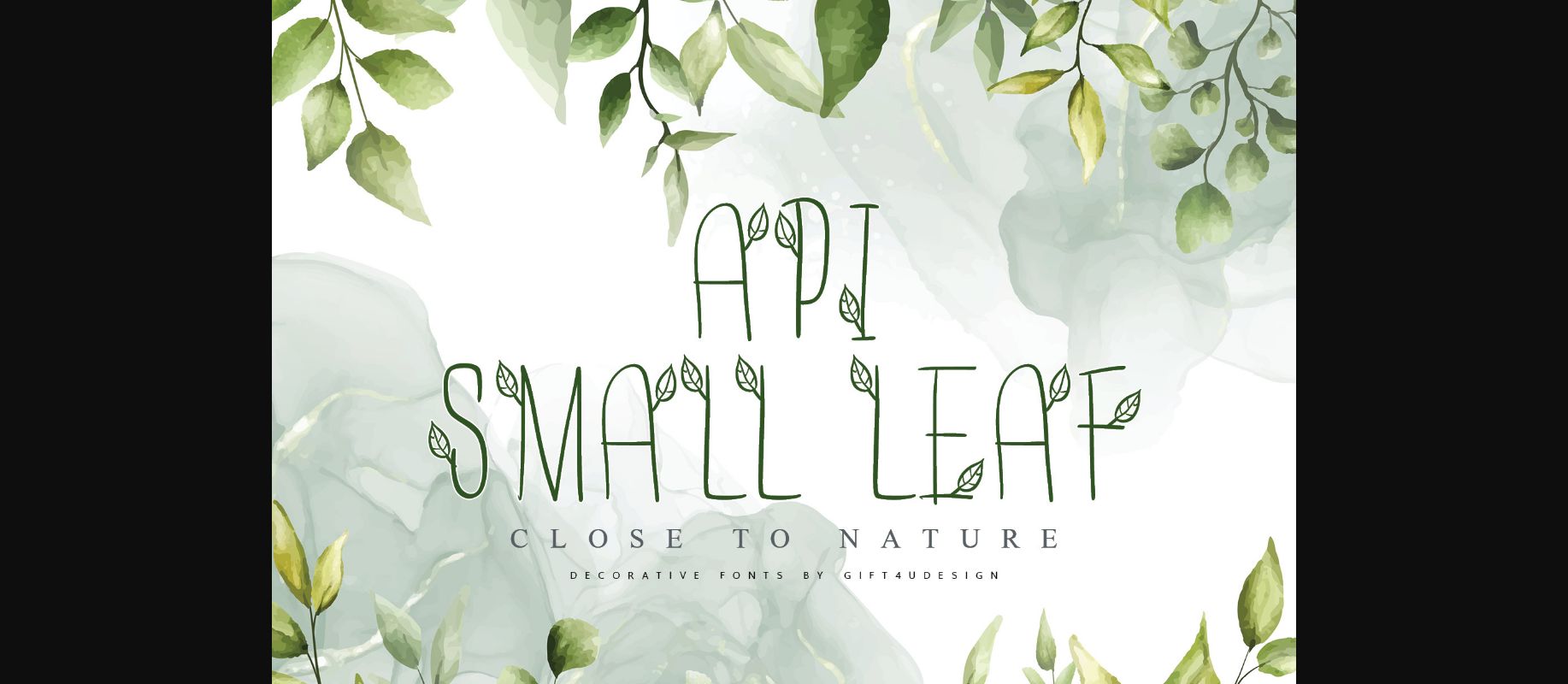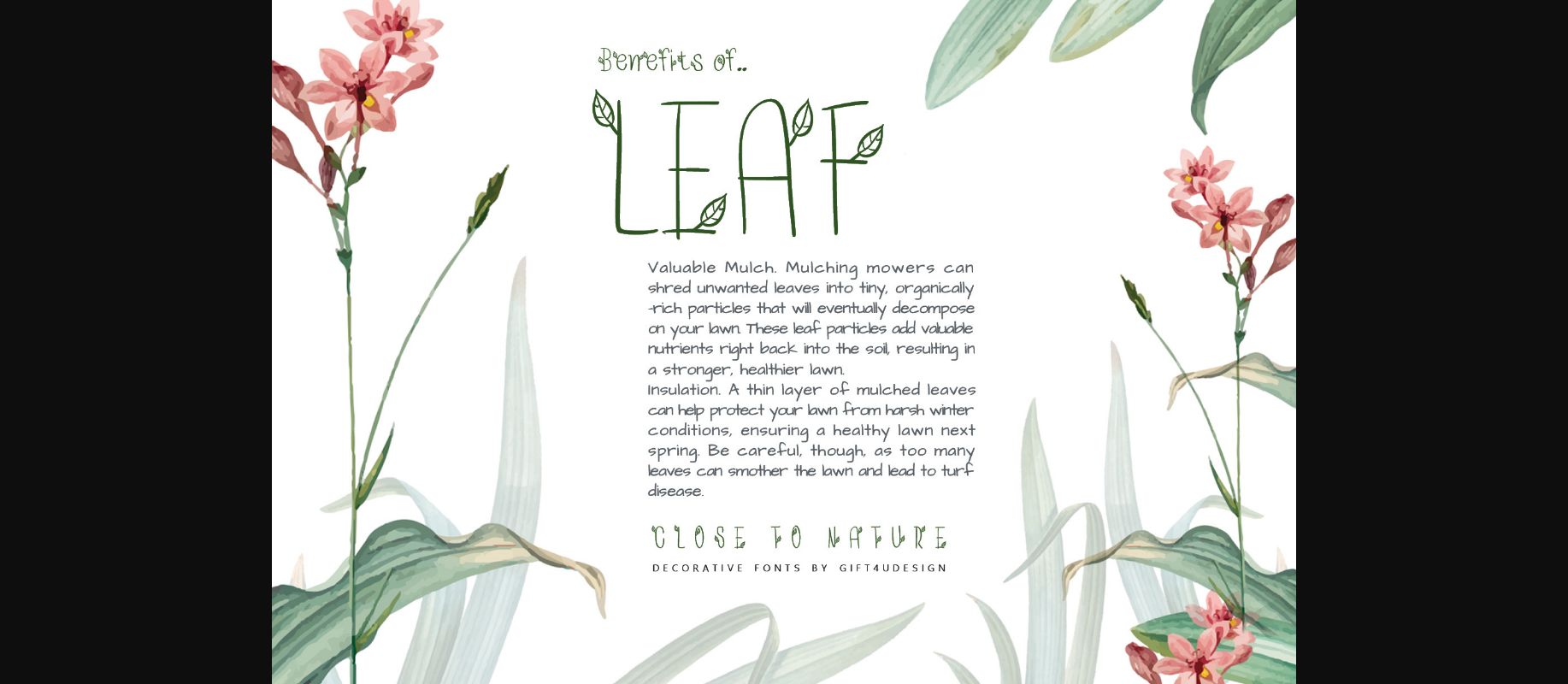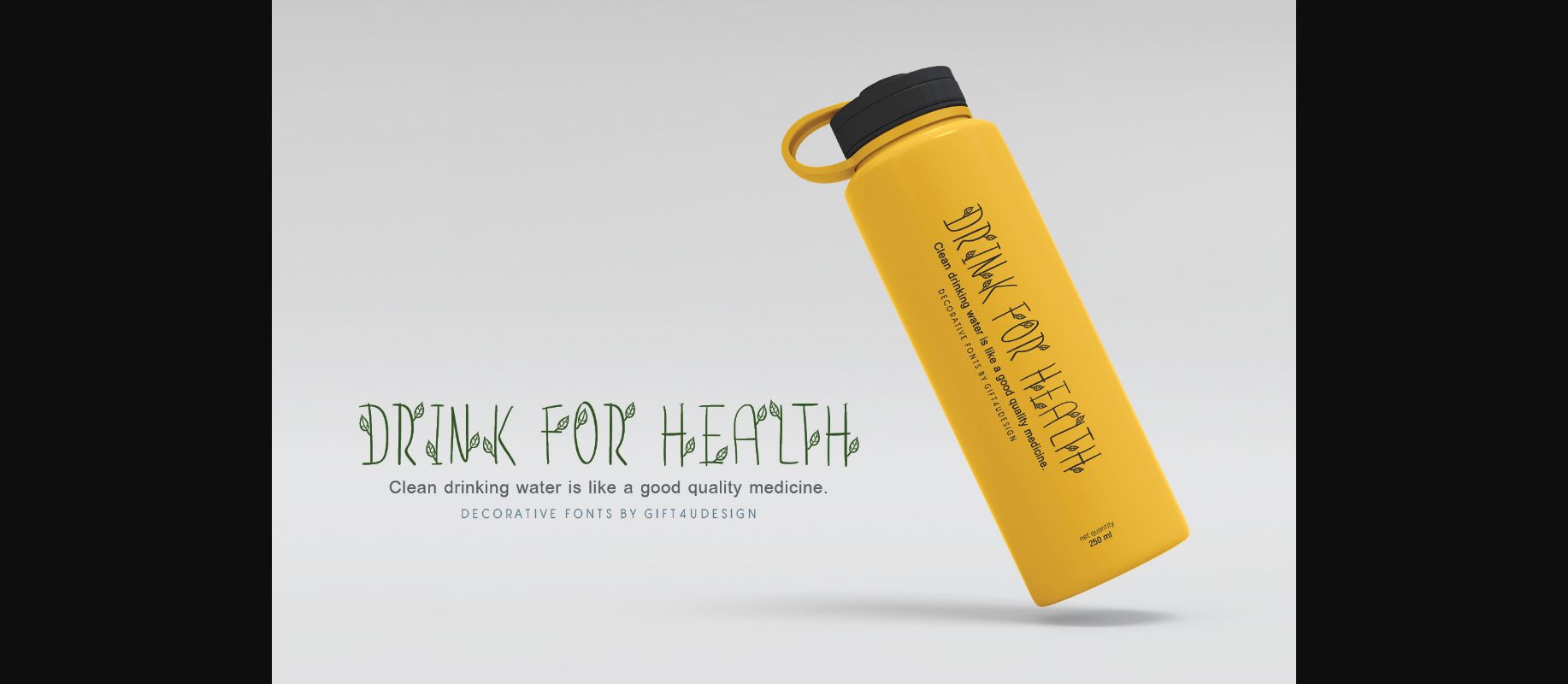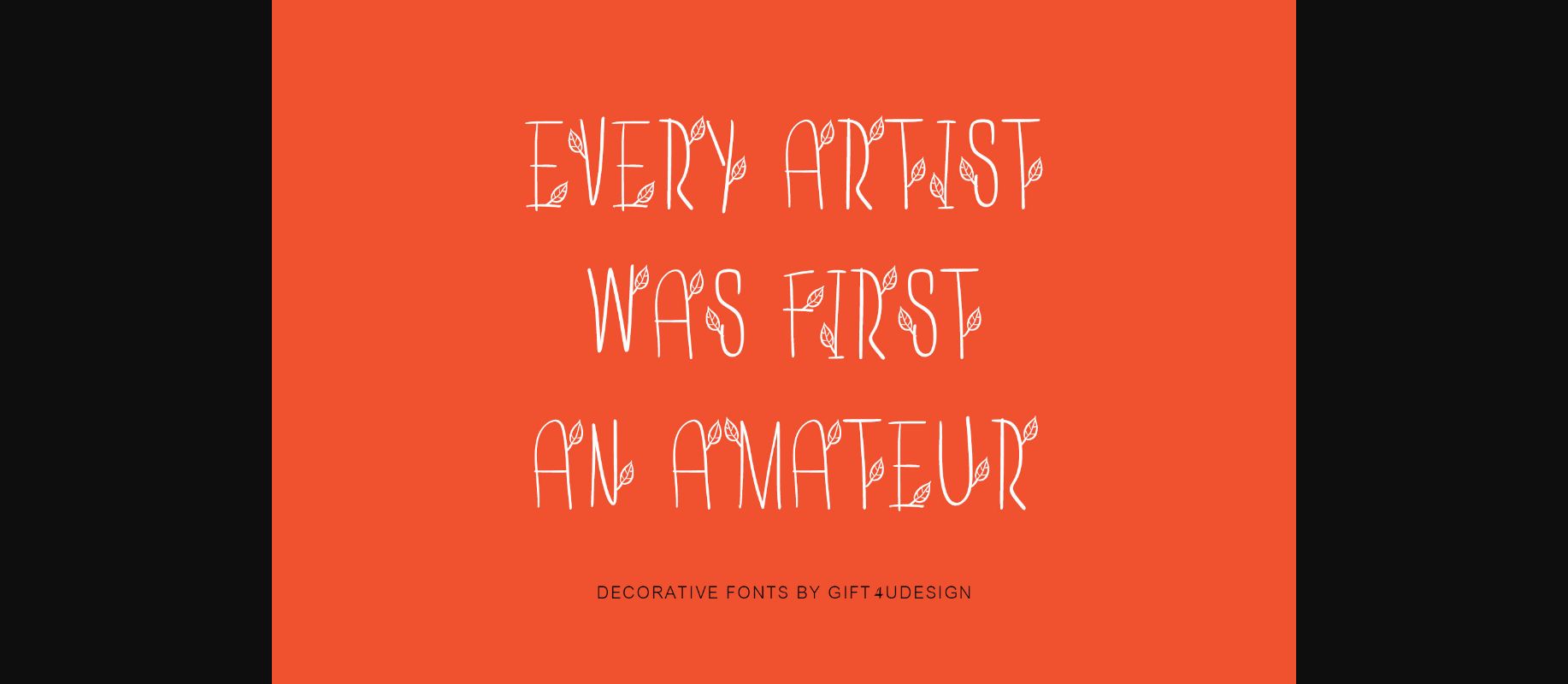
Api-smallleaf Font
About Api-smallleaf Font
Api-Smallleaf is a charming and whimsical handwritten font with an organic feel. Its natural curves and unique shapes are reminiscent of small leaves and branches. This decorative font is perfect for adding a touch of whimsy to your designs, whether it be for invitations, logos, or social media graphics.